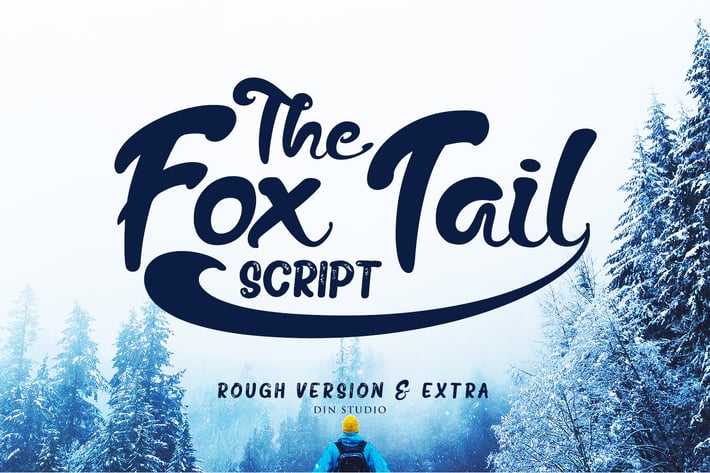
The Fox Tail - Font Duo
The Fox Tail – Font Duo&Extras is a font inspired by the retro style and fox’s tail. It has a unique and attractive design so it is suitable for logos, branding projects, product packaging, quotes, greeting cards and many more.
-A Full Set of Lowercase and Uppercase
- Stylistic Alternates Character Set (A-Z)
- Accents (Multilingual Characters)